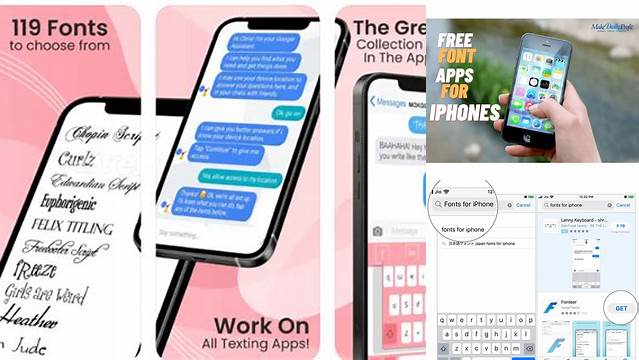
Free IPhone Fonts: Customize Your Apps Today!
Changing the font on your iPhone can give it a fresh, personalized look. While iOS doesn't offer system-wide font changes like Android, there are still ways to customize the fonts in certain apps and even create custom home screen aesthetics. This guide explores free methods and apps to change fonts on your iPhone, giving you the power to express your style.
1. Free Font Apps for iPhone: A Detailed Look
App font choices are plentiful on the iPhone, with many free apps offering a wide selection of typefaces. These apps generally work by allowing you to create custom keyboards or design text-based content within the app itself. Think about how cool it would be to have your Instagram stories pop with a unique font. Let's dive into some popular options and see what they offer:
- Font Diner: This app provides a range of retro and quirky fonts perfect for adding personality to your messages or social media posts. The best part? Itβs completely free! Font Diner is super easy to use, even if you're not a tech whiz. You just type your text, pick a font, and copy-paste it into your desired app. It's that simple, guys! It's a great option if you want to add a touch of vintage charm to your digital communications without spending a dime. Who doesn't love a good throwback?
- Fonts: A classic choice, the Fonts app (often just called "Fonts") is well-known for its huge library of fonts and its ease of use. This app is a go-to for many iPhone users because it offers both free and premium options. While the free version has plenty of cool fonts to get you started, you can unlock even more with a subscription. Think of it as having a wardrobe full of font styles β from elegant scripts to bold, blocky letters. The Fonts app also integrates smoothly with your keyboard, making it easy to switch between different fonts as you type. It's a fun way to add flair to your texts, emails, and social media posts. Plus, it's constantly updated with new fonts, so you'll always have fresh options to choose from.
- Cool Fonts: As the name suggests, this app focuses on unique and stylish fonts that stand out. If you're looking for something that's a bit different from the ordinary, Cool Fonts is worth checking out. It's packed with eye-catching fonts that can make your messages and social media content pop. The app is also user-friendly, with a simple interface that makes it easy to browse and select your favorite fonts. You can even create custom font combinations to really personalize your look. Cool Fonts is a great way to express your individuality and make your digital communications more visually appealing. Whether you're sending a text to a friend or creating a post for Instagram, this app can help you add a touch of style and personality.
When using these apps, keep in mind that the recipient needs to have the same font installed to see it correctly, or they'll see a default font instead. Also, be aware of potential privacy concerns with custom keyboards, and always use reputable apps from trusted developers.
- Import the Font into a Compatible App: Open the app that you want to use the font in and look for an option to import or add custom fonts. The specific steps will vary depending on the app, but it usually involves browsing your Files app and selecting the font file you downloaded. For instance, if you're using a graphic design app, you might find an option to "Add Font" in the settings or text editing tools. Just follow the app's instructions, and you'll be rocking your new font in no time!
- Enjoy Your New Font: Once the font is imported, you should be able to select it from the app's font menu and use it in your projects. It's like giving your app a makeover with a fresh new look!
Remember, not all apps support custom fonts, so make sure to check the app's documentation or settings to see if it's possible. Also, be aware that some apps may require a premium subscription to unlock the custom font feature. But with a little bit of research and experimentation, you can find plenty of apps that let you install fonts and personalize your iPhone experience.
3. Changing App Fonts on iPhone Without Jailbreaking
Jailbreaking used to be a common method for customizing iPhones, but it comes with risks and can void your warranty. Thankfully, you can change app fonts on your iPhone without jailbreaking by using apps that offer font customization within their own environment. These apps provide a safe and legal way to personalize your device without compromising its security or stability. Let's explore some popular apps that allow you to express your style without jailbreaking:
- Using Keyboard Apps: As mentioned earlier, keyboard apps like Fonts and Cool Fonts let you type in custom fonts that can then be pasted into other apps. This is a simple workaround to use different fonts in messaging apps, social media, and more. Think of it as a font translator for your iPhone. You type in your desired font, and the app converts it into a format that can be pasted into other apps. It's a bit of a copy-paste hustle, but it's a convenient way to add some flair to your communications without jailbreaking your device. Plus, it's a great way to experiment with different fonts and see which ones you like best. So, next time you're sending a text or posting on social media, give it a try and see how it transforms your message!
- Utilizing Photo and Video Editing Apps: Many photo and video editing apps allow you to add text with custom fonts. This is a great way to personalize your creations with unique typography. Imagine adding stylish captions to your photos or creating eye-catching titles for your videos. These apps provide a range of font options, allowing you to express your creativity and make your content stand out. From elegant scripts to bold, modern fonts, the possibilities are endless. You can even adjust the size, color, and placement of the text to create the perfect visual impact. So, whether you're a budding photographer or a seasoned video editor, these apps can help you take your creations to the next level with the power of typography. It's a fun and easy way to add a personal touch to your visual content!
- Exploring Social Media Apps: Some social media apps have built-in options for changing app fonts within their platforms. Instagram, for example, offers different font styles for stories and posts. Keep an eye out for these features as they evolve! It's like a secret menu of typography options hidden within your favorite social media apps. While the selection might be limited compared to dedicated font apps, it's a convenient way to add some visual variety to your posts without leaving the platform. Plus, it's a great way to experiment with different font styles and see how they resonate with your audience. So, next time you're crafting a story or posting an update, take a peek at the font options and see if you can add a little extra flair to your content!
4. Best Free Fonts for iPhone: Top Recommendations
With so many fonts available, it can be overwhelming to choose. Here are some of the best free fonts for iPhone, suitable for various purposes:
- Roboto: A clean and modern sans-serif font that is highly readable and versatile. It's a great choice for body text, headings, and user interfaces. Roboto has a friendly and approachable vibe, making it a popular choice for websites, apps, and marketing materials. Its clear and concise letterforms ensure that your message is easily understood, while its subtle curves add a touch of personality. Whether you're designing a website or creating a presentation, Roboto can help you communicate your message effectively and professionally. It's a versatile font that adapts well to different contexts, making it a reliable choice for any project.
- Open Sans: Another popular sans-serif font known for its readability and neutral appearance. It works well in a variety of applications. Open Sans is like the Swiss Army knife of fonts β it's versatile, reliable, and gets the job done without any fuss. Its clean and simple design makes it easy to read in any size, whether you're browsing a website or reading a document. Open Sans is a great choice for body text, headings, and user interfaces. Its neutral appearance allows it to blend seamlessly into any design, while its excellent readability ensures that your message is always clear and easy to understand. Whether you're designing a website, creating a presentation, or writing a document, Open Sans is a font you can always count on.
- Lato: A stylish sans-serif font with a slightly rounded feel. It's a good choice for adding a touch of elegance to your designs. Lato has a warm and friendly personality, making it a great choice for projects that need a touch of approachability. Its slightly rounded letterforms give it a softer and more human feel than other sans-serif fonts. Lato is a versatile font that works well in a variety of applications, from websites to print materials. Whether you're designing a logo, creating a brochure, or writing a blog post, Lato can help you convey your message in a clear and stylish way. Its elegant design and warm personality make it a great choice for any project that needs a touch of sophistication.
- Montserrat: A geometric sans-serif font that exudes modern sophistication. It's perfect for headlines and branding. Montserrat is a font that commands attention. Its strong geometric shapes and clean lines give it a modern and sophisticated look. Montserrat is a great choice for headlines, logos, and branding materials. Its bold and impactful design ensures that your message is always noticed. Whether you're designing a website, creating a poster, or developing a brand identity, Montserrat can help you make a statement. Its modern aesthetic and strong presence make it a perfect choice for any project that needs to stand out.
Remember to check the font license before using it in your projects to ensure it's free for commercial use.
5. iPhone Font Changer Apps: Are They Worth It?
Many apps claim to be iPhone font changer apps, but their functionality is often limited to keyboard integration or specific in-app use. It's important to read reviews and understand the app's capabilities before downloading. Do these apps really live up to the hype, or are they just a waste of space on your iPhone? Let's take a closer look at what these apps offer and whether they're worth your time and effort. It really depends on what you're looking for, guys.
Some font changer apps offer a wide selection of fonts that you can use within the app itself. This can be great for creating social media posts, designing graphics, or adding stylish text to your photos and videos. However, these apps usually don't allow you to change the system font on your iPhone. So, if you're hoping to give your entire device a font makeover, you might be disappointed. On the other hand, keyboard apps let you type in custom fonts that can then be pasted into other apps. This is a handy workaround if you want to use different fonts in messaging apps, emails, or social media posts. However, it can be a bit tedious to copy and paste text all the time. Plus, the recipient needs to have the same font installed to see it correctly, or they'll see a default font instead.
So, are iPhone font changer apps worth it? The answer depends on your needs and expectations. If you're looking for a quick and easy way to add some flair to your social media posts or create stylish graphics, these apps can be a great option. However, if you're hoping to change the system font on your iPhone, you'll need to look elsewhere. And remember to read reviews and understand the app's capabilities before downloading to avoid any surprises. Also, always use reputable apps from trusted developers to ensure your privacy and security.
6. Custom Fonts on iPhone: A Step-by-Step Guide
Want to get really creative? You can use custom fonts on your iPhone within apps that support them. This involves downloading font files and importing them into the app. Here's a more detailed guide:
- Find a Reputable Font Source: As mentioned before, websites like Google Fonts, FontSpace, and DaFont offer a plethora of fonts, both free and paid. Browse these sites and find fonts that match your desired style. Make sure the font files are compatible with iOS and that you download them from a trusted source to avoid any security risks.
- Download the Font File: Once you've found a font you love, download the .ttf or .otf file to your iPhone. The file will usually be saved in your Files app. If you're downloading the font on your computer, you can transfer it to your iPhone via AirDrop, iCloud Drive, or other file-sharing services. Just make sure the file is accessible on your iPhone.
- Import the Font into a Compatible App: Open the app that you want to use the font in and look for an option to import or add custom fonts. The specific steps will vary depending on the app, but it usually involves browsing your Files app and selecting the font file you downloaded. Some apps may have a dedicated "Fonts" section in their settings where you can import fonts. Others may allow you to add fonts directly from the text editing tools. Just follow the app's instructions, and you'll be rocking your new font in no time!
- Enjoy Your New Font: Once the font is imported, you should be able to select it from the app's font menu and use it in your projects. It's like giving your app a makeover with a fresh new look! Experiment with different fonts and find the ones that best suit your style. You can even create custom font combinations to really personalize your projects. So, go ahead and unleash your creativity with custom fonts on your iPhone!
7. Free iPhone Fonts for Commercial Use: What to Know
If you're using fonts for business purposes, it's crucial to understand the licensing terms. Some free iPhone fonts are only free for personal use and require a license for commercial use. Make sure to check the font's license before using it in your projects to avoid any legal issues.
8. How to Change Font Size on iPhone: An Accessibility Feature
While you can't globally change the font style on your iPhone, you can adjust the font size for better readability. This is an important accessibility feature that can benefit many users. To change the font size, go to Settings > Accessibility > Display & Text Size > Larger Text.
9. Font Customization on iPhone: Beyond the Basics
Font customization on iPhone might seem limited, but with a little creativity, you can achieve a personalized look. Explore different apps and techniques to find what works best for you.
10. Stylish Fonts for iPhone: Making Your Device Unique
Stylish fonts can make your iPhone stand out from the crowd. Experiment with different fonts in compatible apps to create a unique and personalized aesthetic.
11. Cool Fonts for iPhone Free: Where to Find Them
Finding cool fonts for iPhone free is easier than you think. Numerous apps and websites offer a wide selection of free fonts for various purposes.
12. Unique Fonts for iPhone: Expressing Your Individuality
Unique fonts are a great way to express your individuality on your iPhone. Explore different font styles and find the ones that resonate with your personality.
13. Aesthetic Fonts for iPhone: Creating a Visual Harmony
Aesthetic fonts for iPhone can help you create a visual harmony on your device. Choose fonts that complement your overall style and create a cohesive look.
14. Free Fonts for iPhone Keyboard: Enhancing Your Typing Experience
Free fonts for iPhone keyboard can enhance your typing experience. Use keyboard apps that offer font customization to add a touch of style to your messages.
15. How to Add Fonts to iPhone for Free: A Comprehensive Guide
This section provides a comprehensive guide on how to add fonts to iPhone for free, covering different methods and apps.
16. Change Font Style on iPhone Free: Exploring the Possibilities
Discover the possibilities of how to change font style on iPhone free using various apps and techniques.
17. iPhone Font Generator Free: Creating Custom Text Styles
Use an iPhone font generator free to create custom text styles for your social media posts and other creative projects.
18. Best Font App for iPhone Free: Top Choices for Customization
Explore the top choices for the best font app for iPhone free and find the perfect app for your customization needs.
19. iPhone Font Download Free: Safe and Reliable Sources
Find safe and reliable sources for iPhone font download free and avoid downloading fonts from untrustworthy websites.
20. Cool Fonts App for iPhone Free: Adding Flair to Your Messages
Use a cool fonts app for iPhone free to add flair to your messages and make them stand out from the crowd.
21. Change iPhone Font Style Free: A Step-by-Step Tutorial
Follow a step-by-step tutorial on how to change iPhone font style free using different methods and apps.
22. Font Changer for iPhone Free: The Ultimate Guide
This section provides the ultimate guide to font changer for iPhone free, covering everything you need to know about font customization.
23. Stylish Font App for iPhone Free: Elevating Your Content
Use a stylish font app for iPhone free to elevate your content and make it more visually appealing.
24. Free Font Keyboard for iPhone: A Stylish Typing Experience
Enjoy a stylish typing experience with a free font keyboard for iPhone that offers a variety of font styles.
25. Font Style Changer for iPhone Free: Customizing Your Device
Customize your device with a font style changer for iPhone free and express your unique personality.
26. How to Get Cool Fonts on iPhone for Free: Tips and Tricks
Learn tips and tricks on how to get cool fonts on iPhone for free and enhance your device's aesthetic.
27. Font App iPhone Free: Customizing Your Text
Customize your text with a font app iPhone free and make your messages more expressive.
28. Stylish Fonts for iPhone Free: Make Your Phone Unique
Make your phone unique with stylish fonts for iPhone free and express your individual style.
29. Different Fonts for iPhone Free: A Wide Variety to Choose From
Choose from a wide variety of different fonts for iPhone free and find the perfect font for your needs.
30. Font Keyboard App for iPhone Free: Express Yourself Through Text
Express yourself through text with a font keyboard app for iPhone free and add a personal touch to your messages.
While iOS limits system-wide font changes, there are numerous ways to customize fonts on your iPhone using free apps and creative techniques. Experiment with different options to find the perfect font style for your needs and express your individuality.